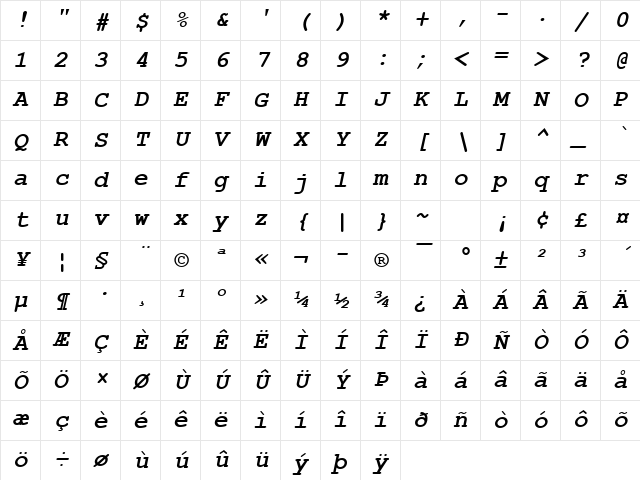
Courier New Bold Italic
Foundry: Monotype Typography
Designer: Howard Kettler
Complete Courier New Bold Italic glyph index. Displaying only characters natively supported by Courier New Bold Italic font.
Design Context for Courier New
Courier New uses fixed-width spacing throughout, giving it the structured, systematic character associated with coding environments and technical documentation. The slanted form adds forward momentum and visual energy. Its bold stroke weight gives it real presence on the page.